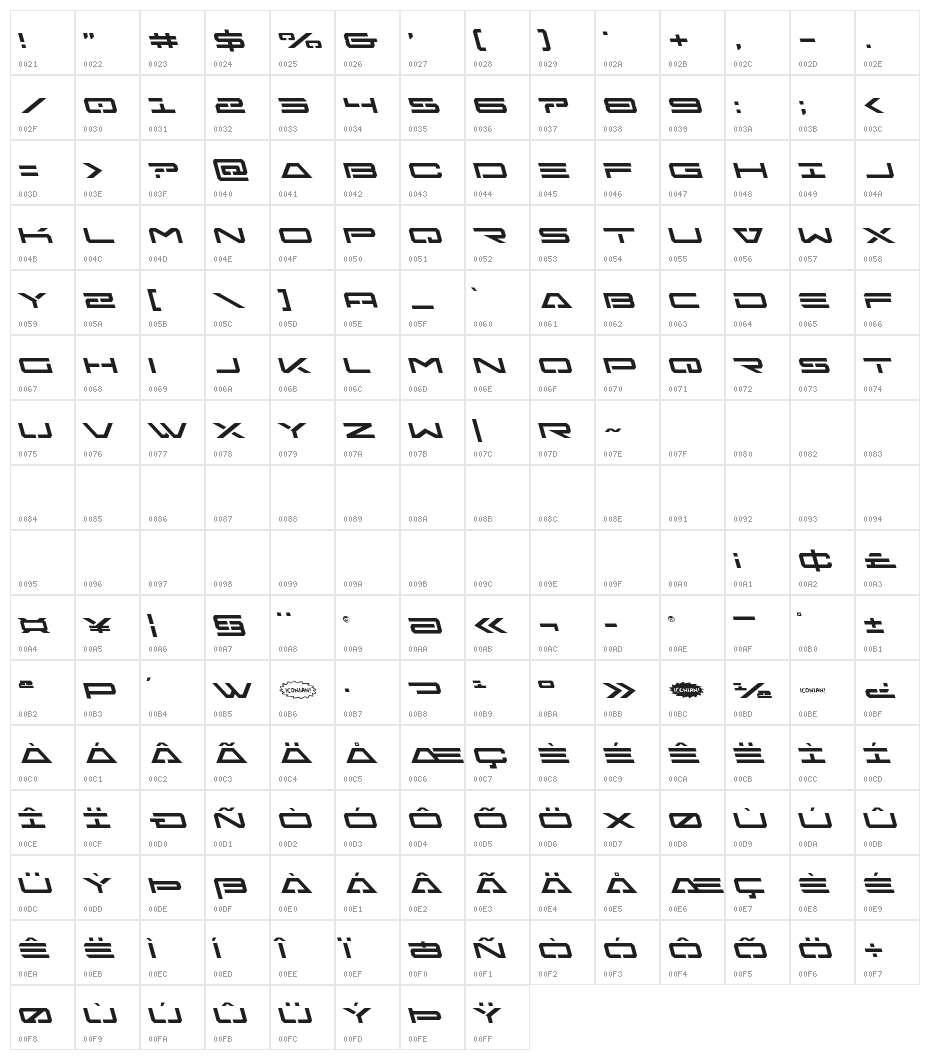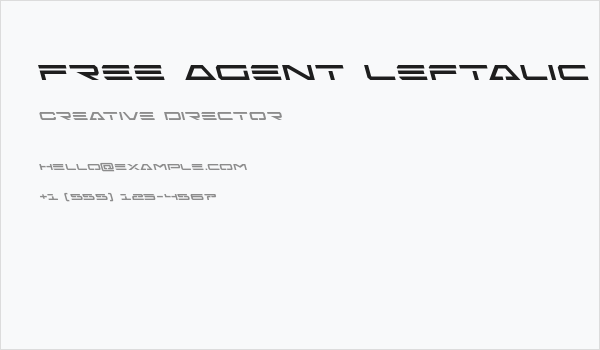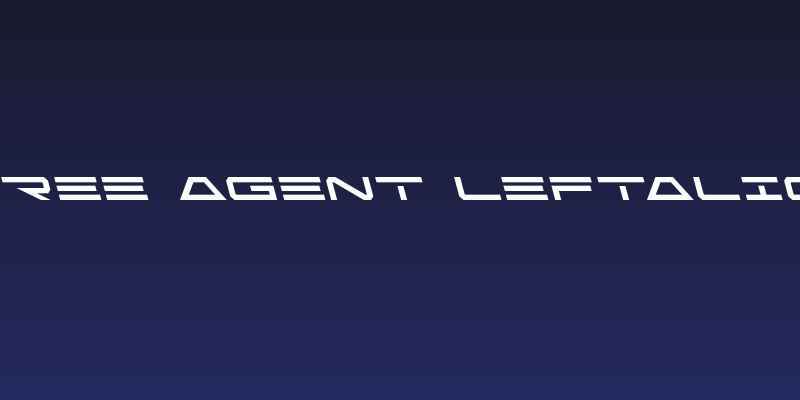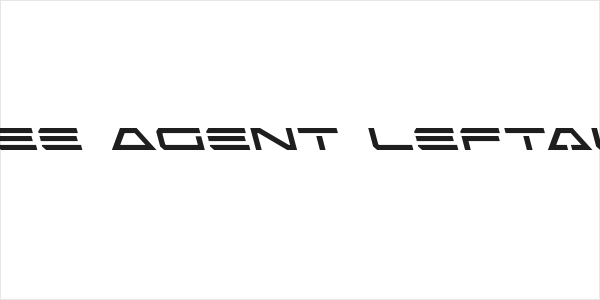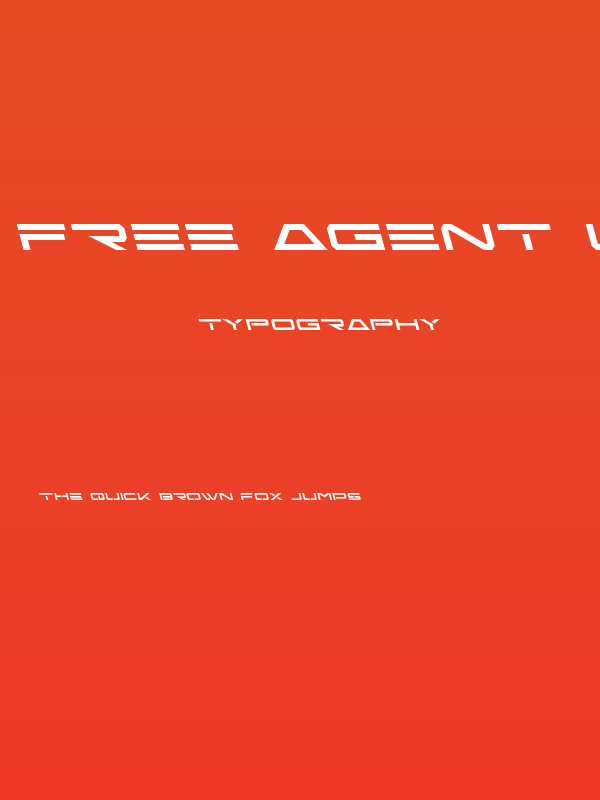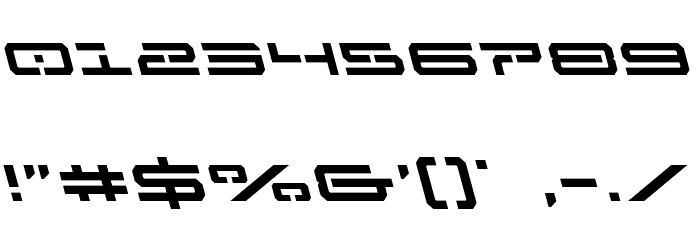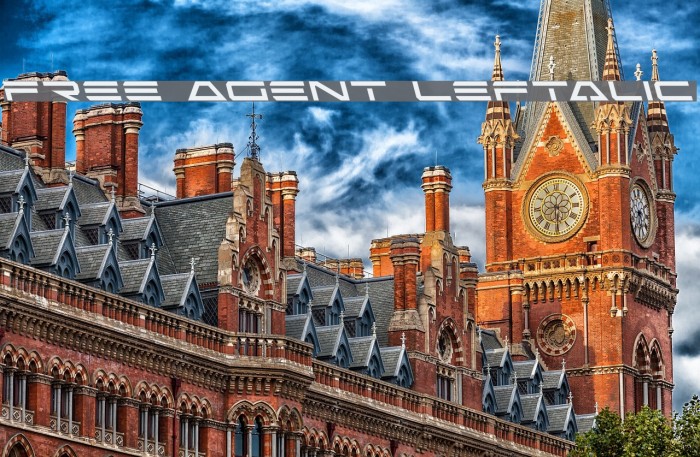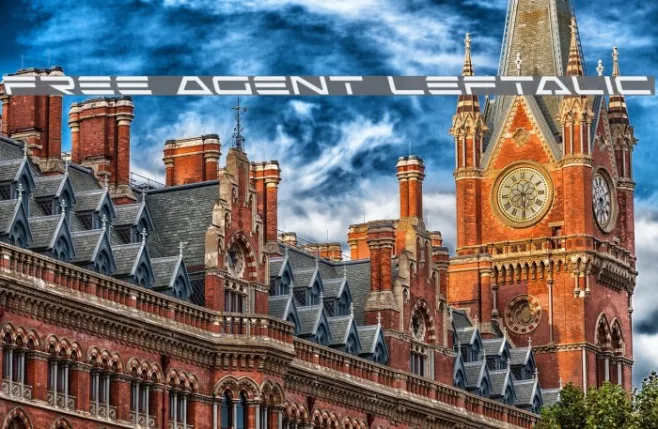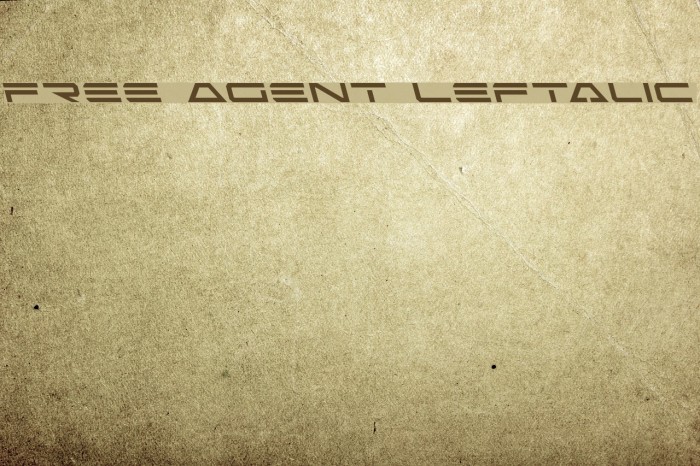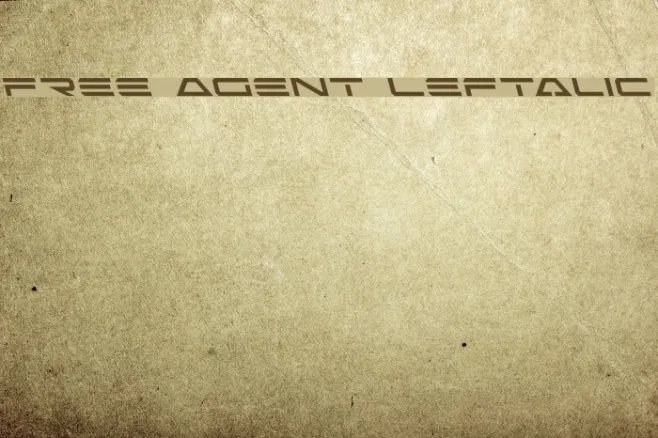
Free Agent Leftalic Font
Free Agent Leftalic Description
This font features a futuristic and angular design, characterized by its sharp edges and geometric shapes. The letters are slanted, giving a dynamic and forward-moving appearance. The uppercase and lowercase letters maintain a consistent style, with a unique cut-out pattern that adds to its modern aesthetic. The numbers and special characters follow the same design principles, ensuring uniformity across all glyphs. This font is ideal for projects that require a bold and innovative look, such as technology branding or sci-fi themed designs.
| Proposed Projects | Ideal for technology branding, sci-fi themed designs, and modern advertising. |